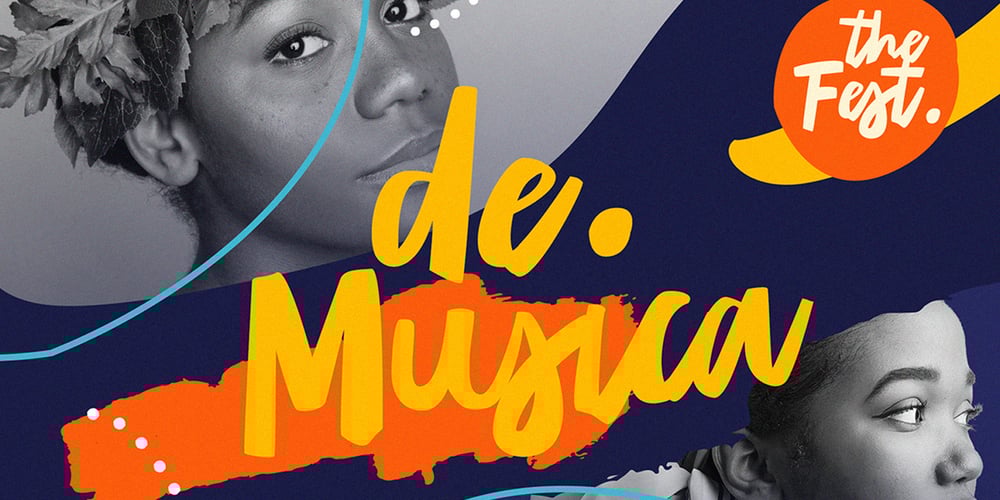
TF The Fest
TF The Fest font
TF The Fest Font Family was designed by Firman Suci Ananda, Fajar Wahyu Pribadi and published by Tyfomono. TF The Fest contains 2 styles and family package options. Take your design game to the next level with a bold, thick and expressive font that truly looks hand painted. The Fest uses authentic looking fonts and is sure to grab the attention of customers and designers alike. We made 2 styles for The Fest, it lets you explore and improve the personality of your design works. This version is also great for blocks of text and small print. Slanted – With a little improvement for the slanted version, The Fest Slanted is fit for the any size. These style is alternative of your choices for the look.